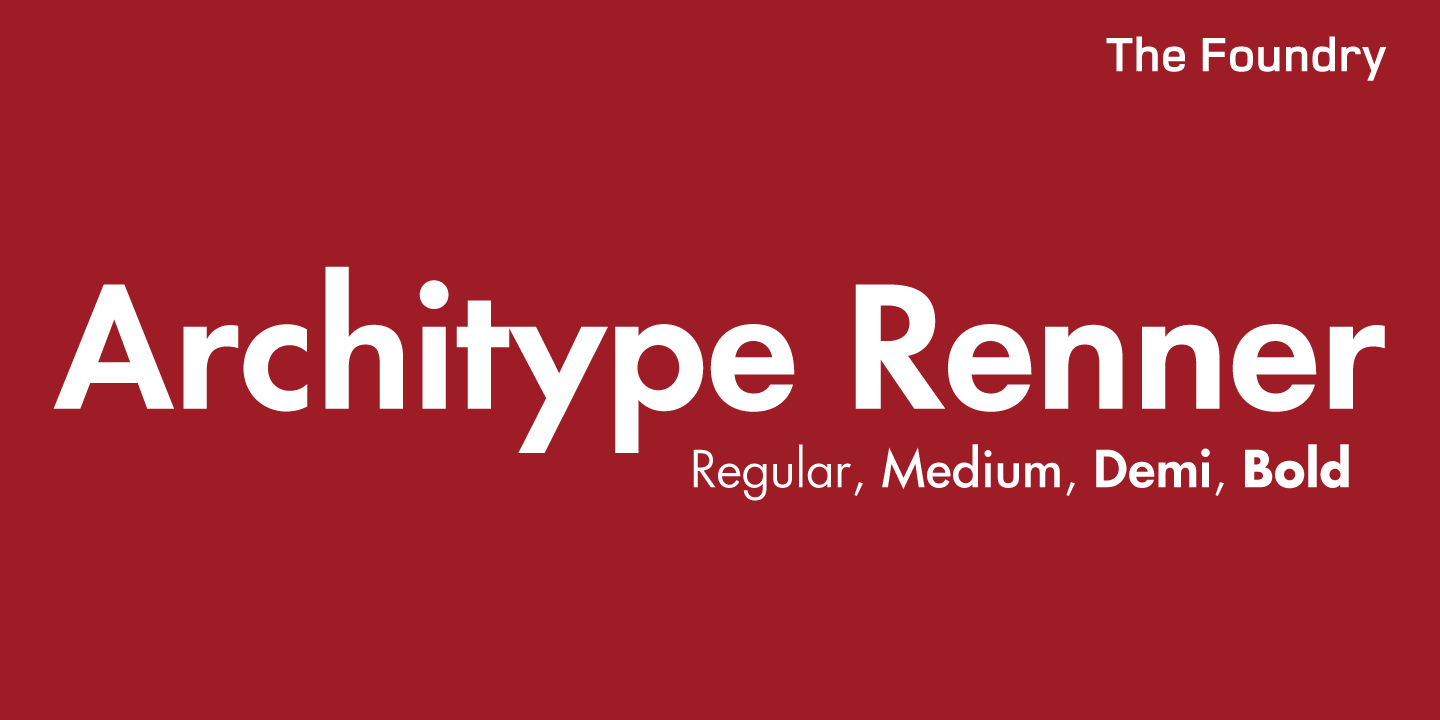
The Architype Renner Font is perfect for modernist design projects including Bauhaus-inspired layouts, architectural presentations, design museum materials, minimalist branding systems, contemporary art galleries, modernist publications, geometric product packaging, and avant-garde cultural events. This revolutionary typeface brings authentic geometric modernism and architectural precision to any design project celebrating functional design principles and progressive artistic movements.
What makes Architype Renner Font so exciting is its faithful representation of Paul Renner's geometric design philosophy with pure, mathematical letterforms that embody the revolutionary spirit of modernist typography and Bauhaus design principles. The letters feature strict geometric construction with minimal decorative elements that create an immediate sense of functional clarity and progressive design thinking. This distinctive modernist character makes it perfect for projects that want to communicate innovation, rational design, and the timeless appeal of geometric functionalism.
The Architype Renner Font family typically includes multiple weights from light to bold, complete with geometric italic variations and architectural symbol sets. Many versions feature modernist ornaments, Bauhaus-inspired elements, and functional design glyphs that enhance its authenticity for architectural and design applications.